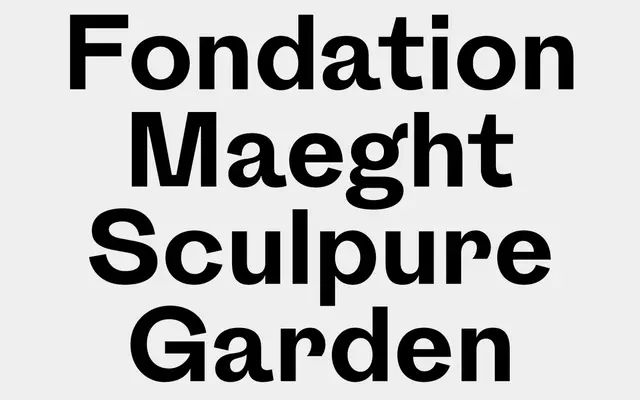
Reformat B
A seven-font grotesque family by Mark Niemeijer that bridges 19th century grotesque traditions and 20th century neo-grotesk rationalism through organic curves and distinctive detailing.
Reformat B is one half of the broader Reformat family, distinguished from its sibling Reformat A by its natural curves and more characterful letterforms rather than a systematic, rational approach. Designed by Mark Niemeijer and released in February 2024, the family comprises seven fonts informed by historic grotesque examples without directly reviving any single source. It suits projects that need the structural familiarity of a grotesque but with more personality in the details.
Classified by the foundry as Grotesque, drawing on 19th century grotesque and 20th century neo-grotesk influences. Reformat B specifically emphasises natural curves and distinctive details over systematic rationalism.